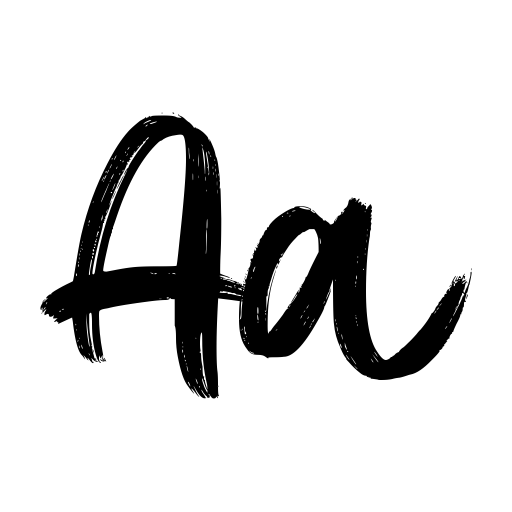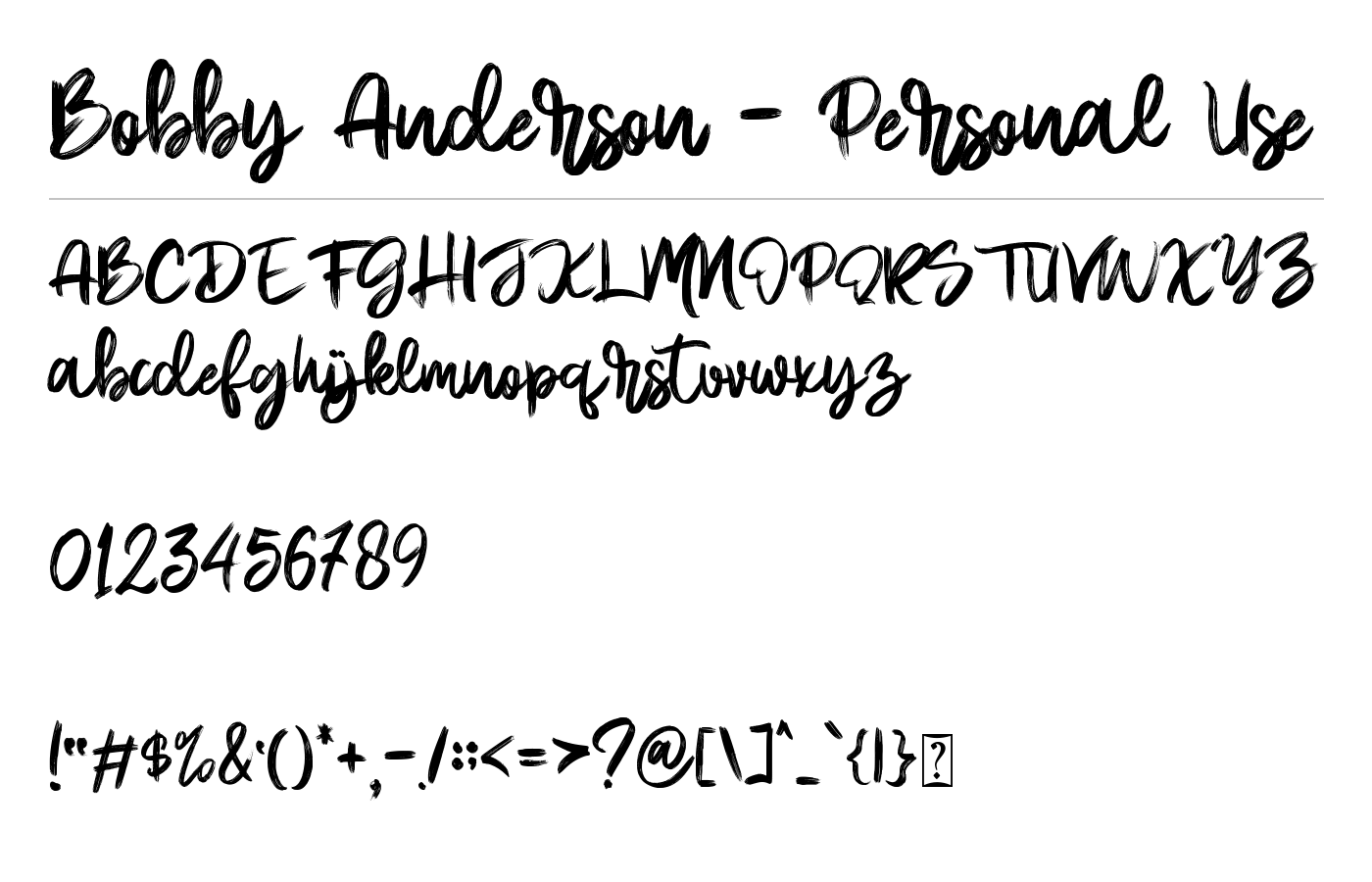
Bobby Anderson is a lively, brush-style script font that brings a personal, hand-painted feel to any design. With its bold, textured strokes and natural flow, it works beautifully for creative projects, branding, and invitations where a casual yet expressive touch is desired. This font's energetic personality makes it ideal for adding warmth and character to headlines and logos.